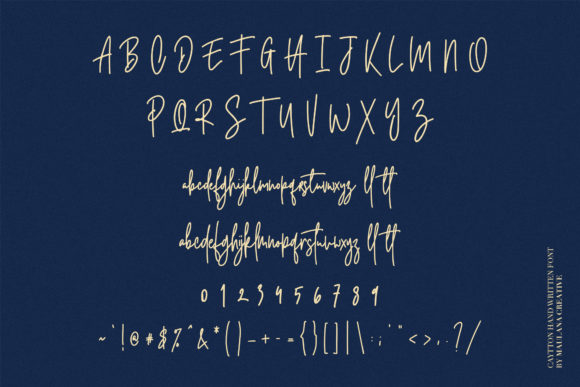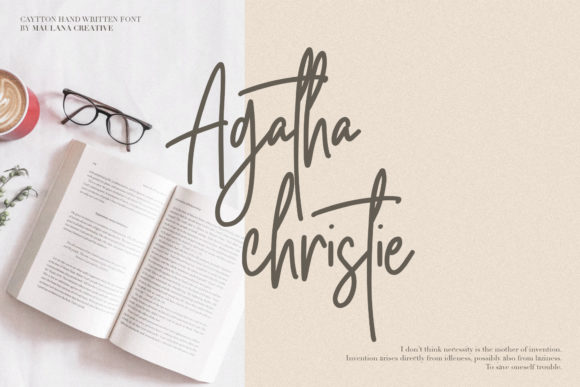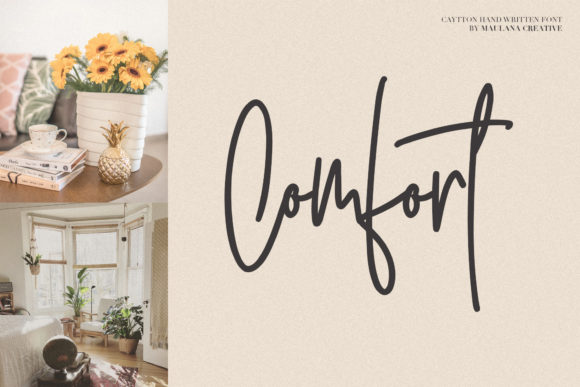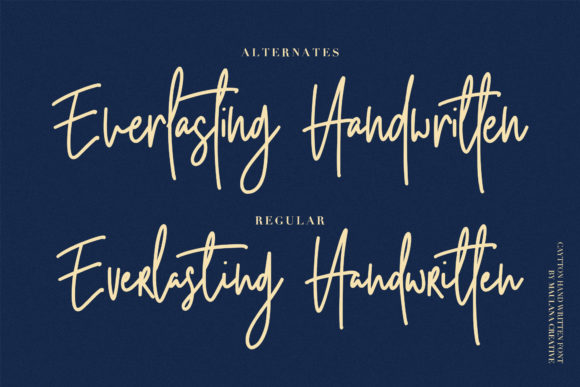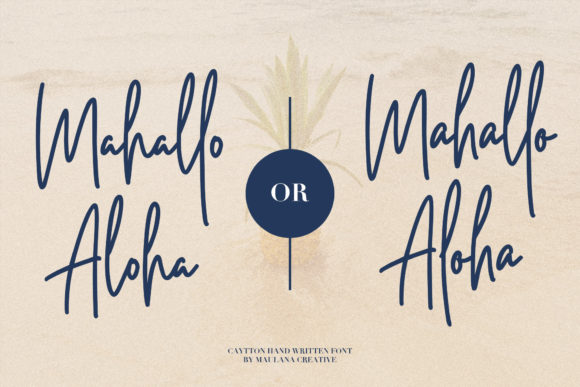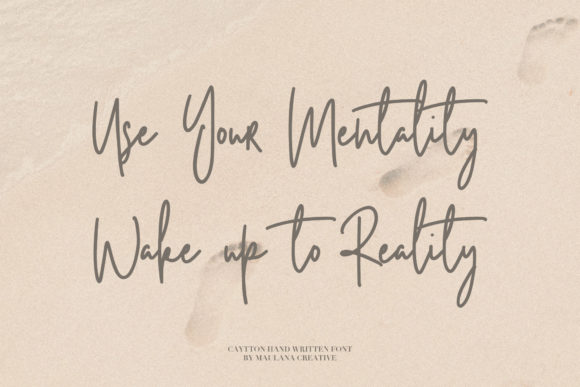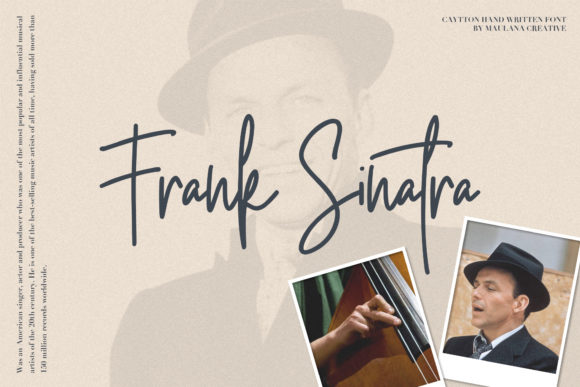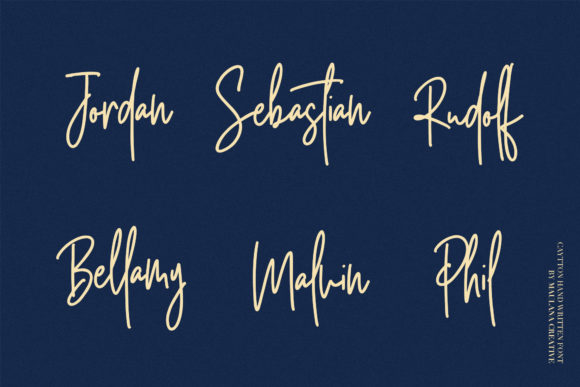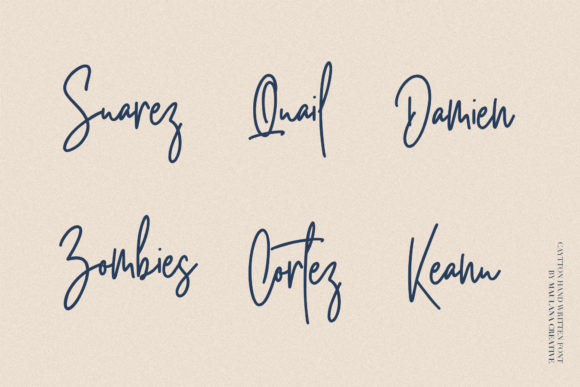
Cayttons Font
About Cayttons Font
Cayttons is the perfect font to lend your designs an authentic and hand-crafted feel, making it the perfect crafting font!